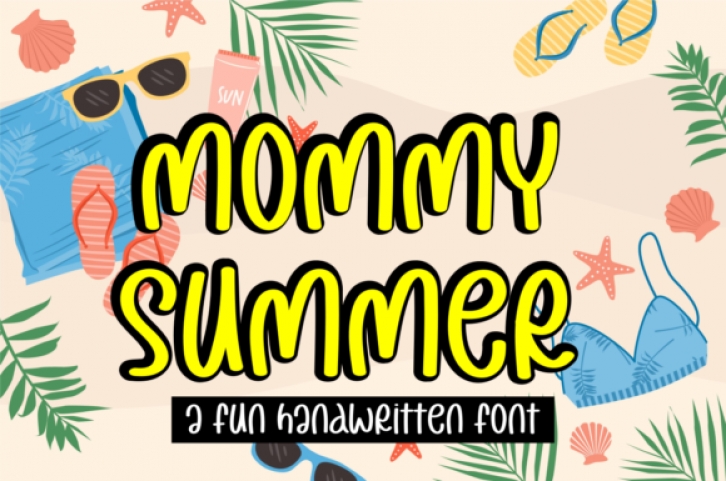
Mommy Summer is a fresh & simple handwritten font. It can be used for various purposes such as logos, wedding invitations, headings, t-shirts, letterhead, signage, labels, news, posters, badges and so much more.